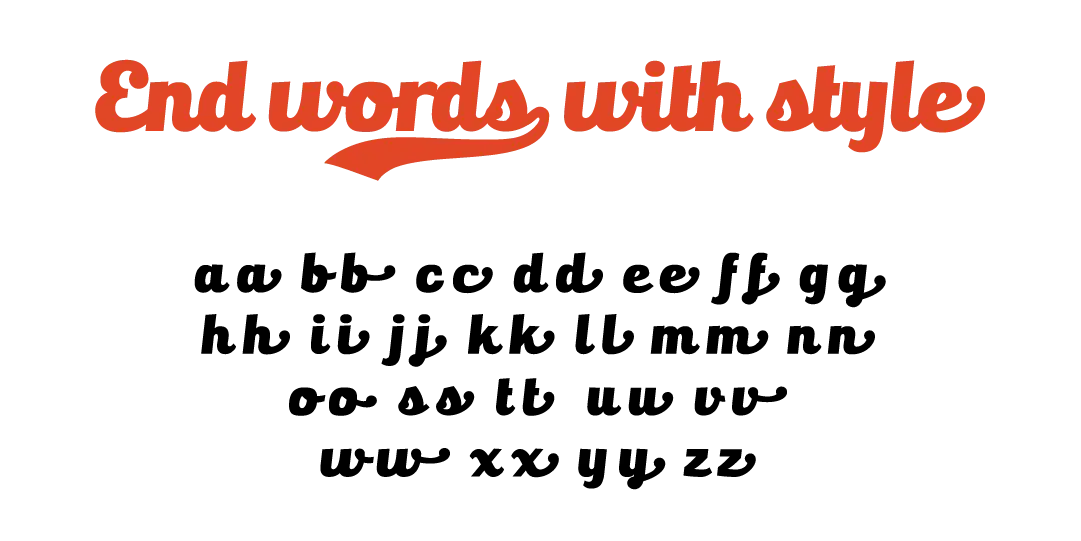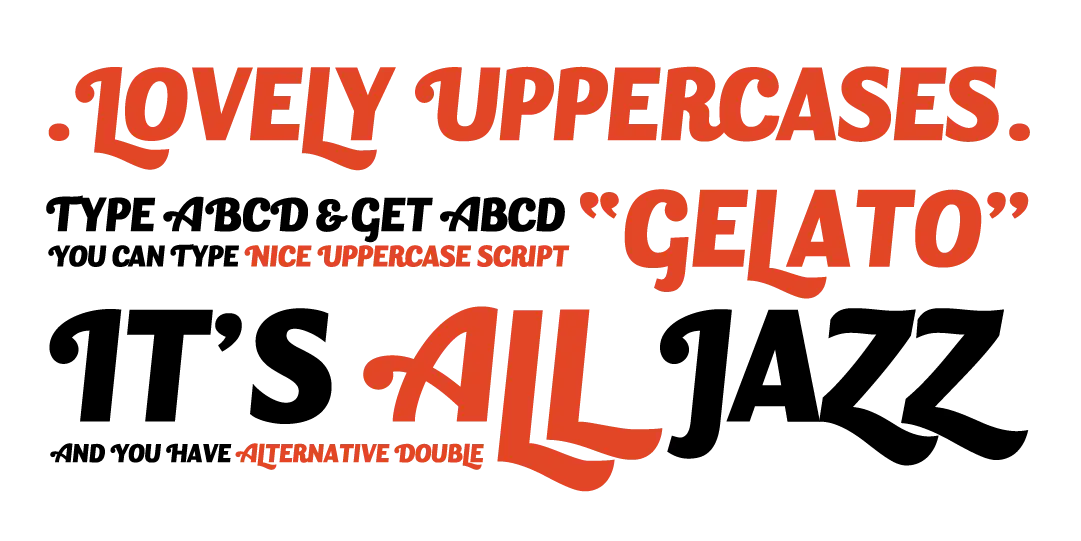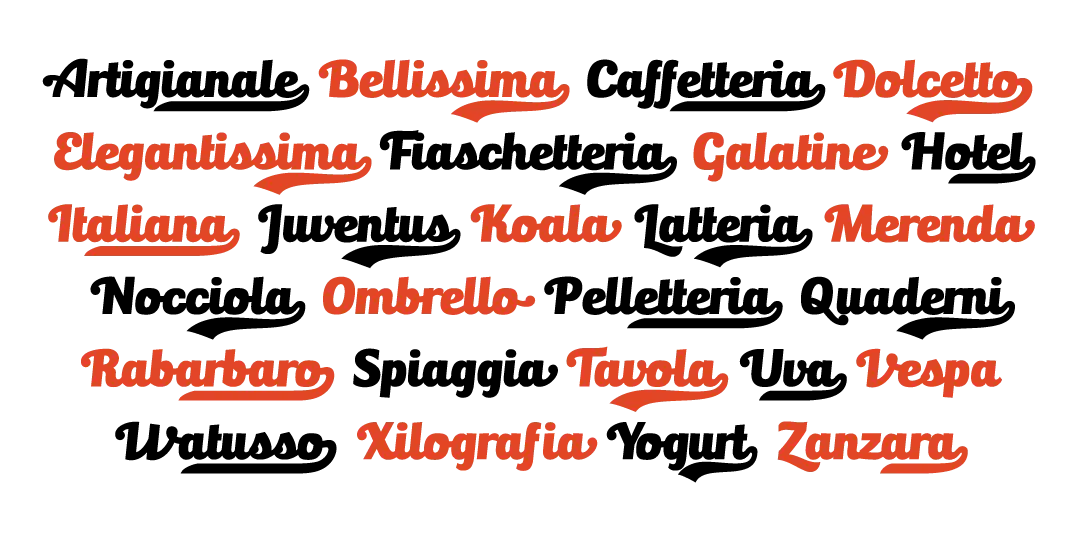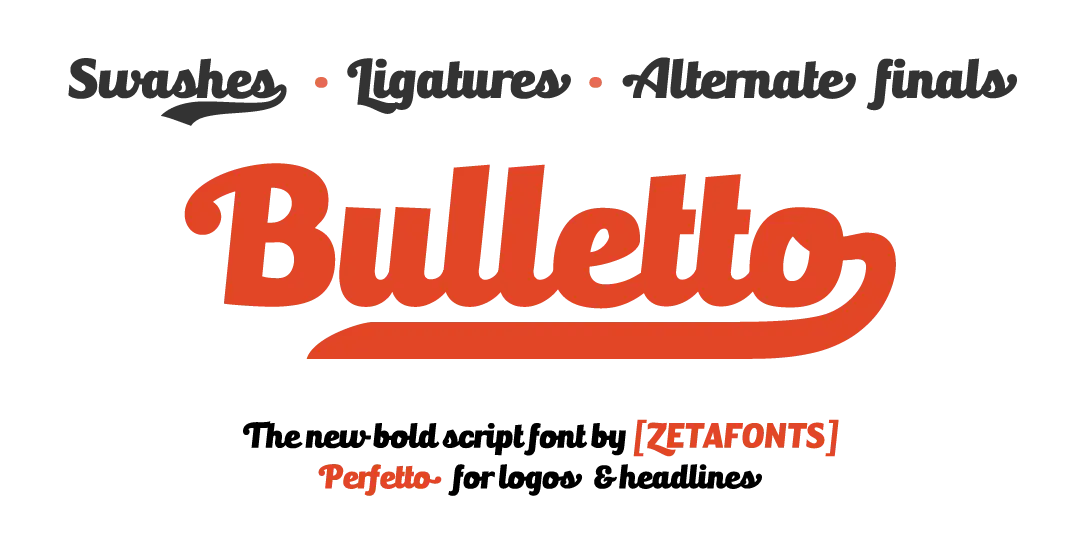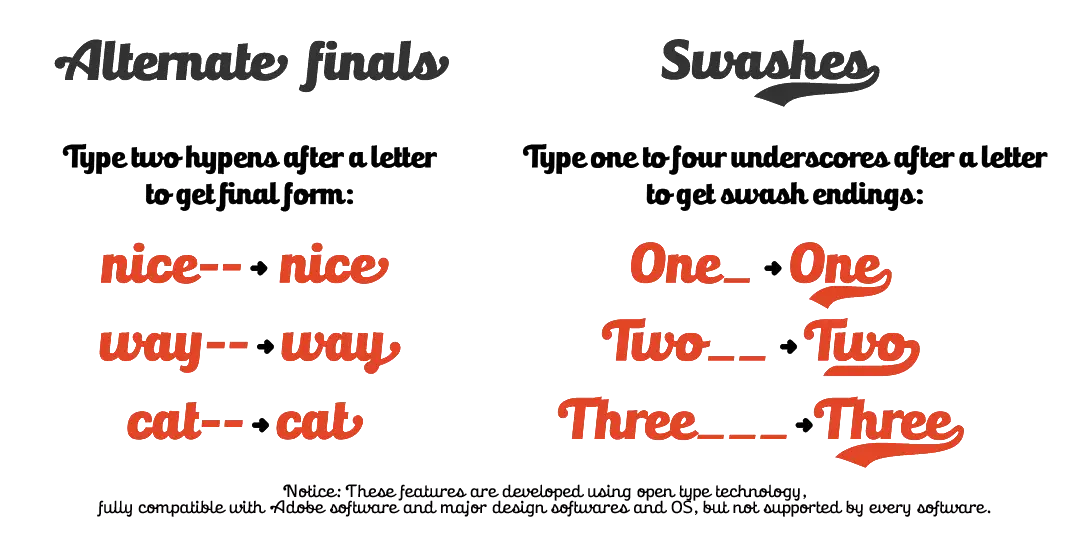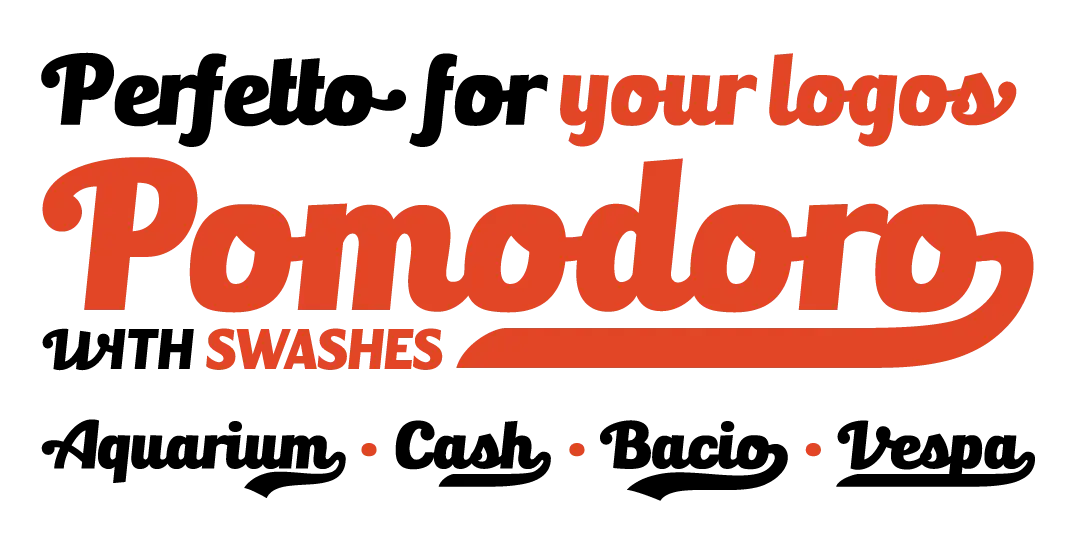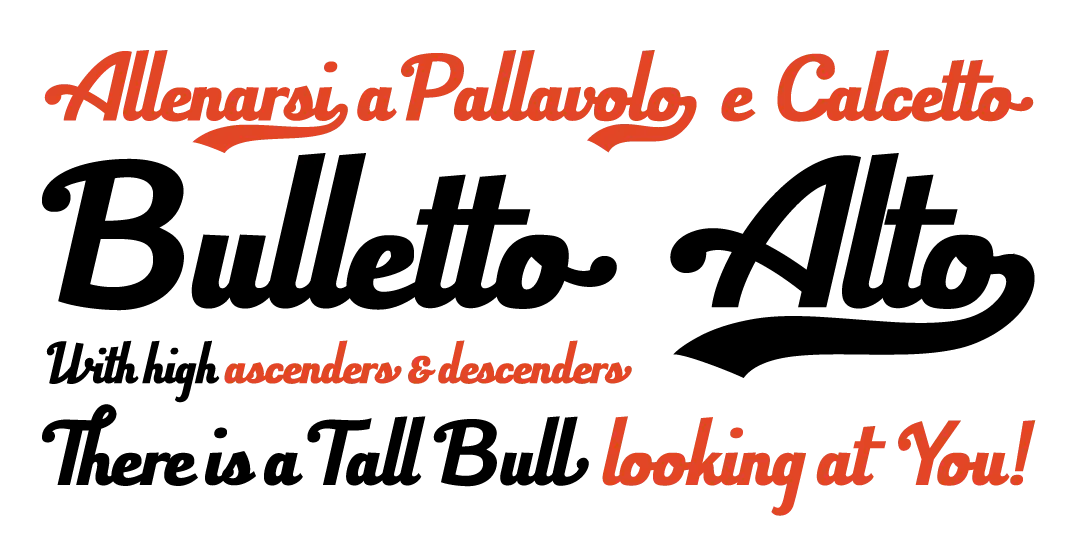
Bulletto Killa Font
Introducing the Bulletto Killa Font, a striking typeface designed to make a bold statement in any project. This font features a unique blend of modern and vintage styles, making it perfect for branding, logos, and promotional materials.
• Ideal for creating eye-catching logos and branding elements.
• Perfect for posters, flyers, and other print materials.
• Great for web design, ensuring your text stands out.